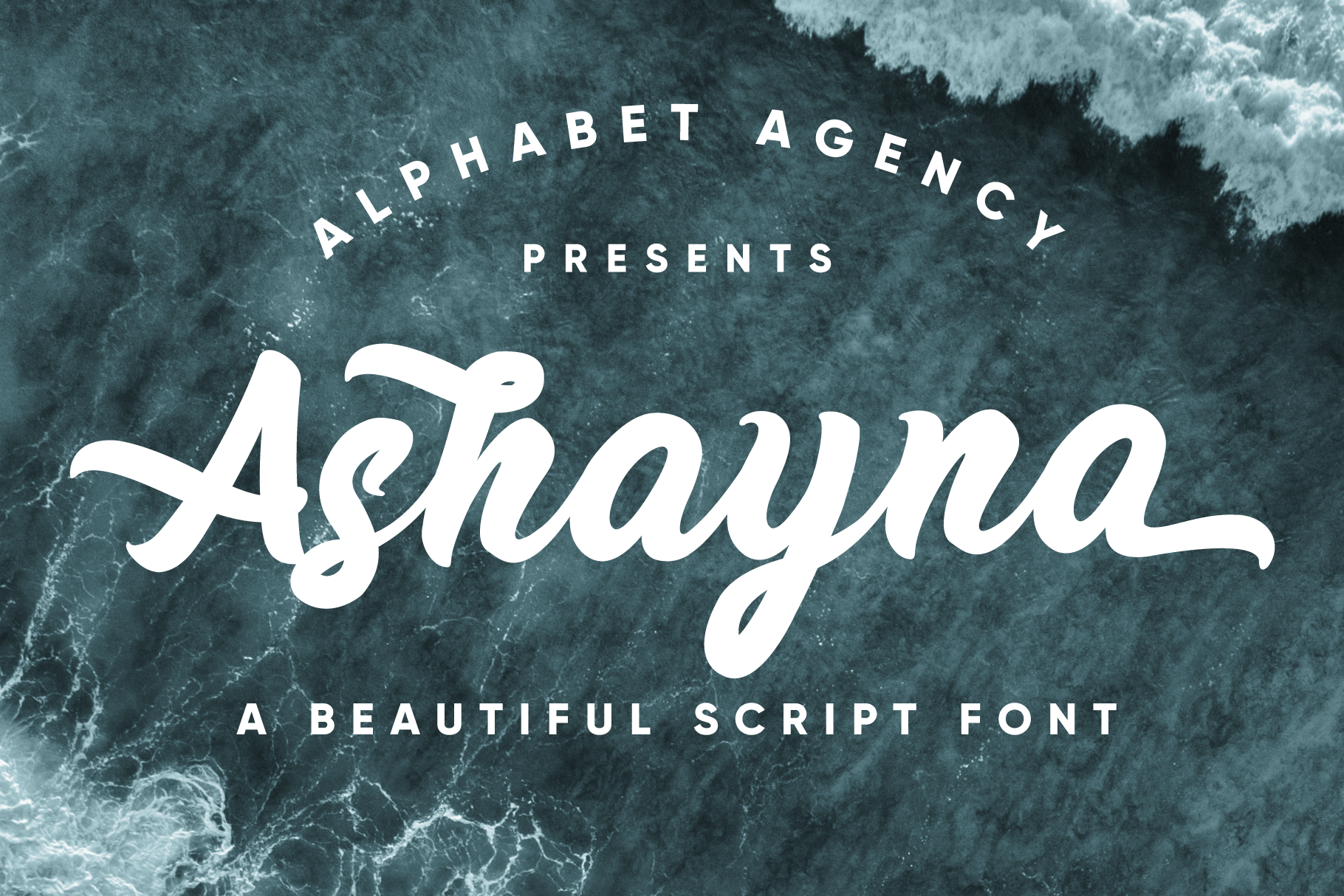
Ashayna Script Font
Ashayna is a beautiful cursive script font designed by Jon Swinn of Alphabet Agency. The font creates smoothly joined letters to create wonderful flowing words.
Ashayna is a Latin Pro font that contains other 200 characters including uppercase, lowercase, numbers, punctuation and extensive Latin characters.
The font also includes OpenType features that provide the option of multiple alternatives for letters and combination of characters giving you more creative possibilities.
The font is ideal for use in casual settings. The welcoming vibe of the font creates comfort, so using the font in materials such as menus or greeting cards could work fantastically well.